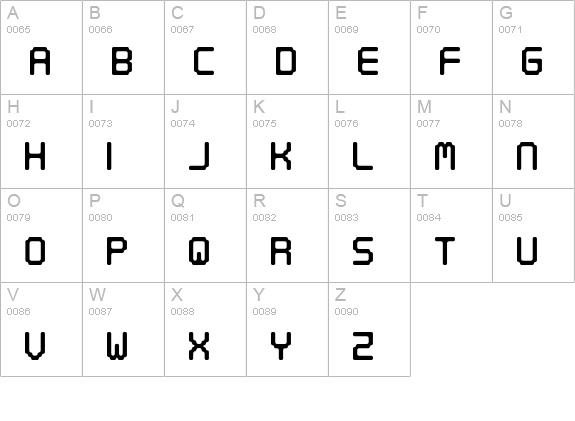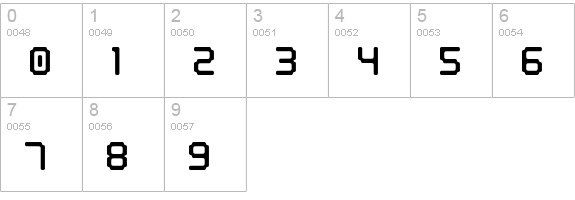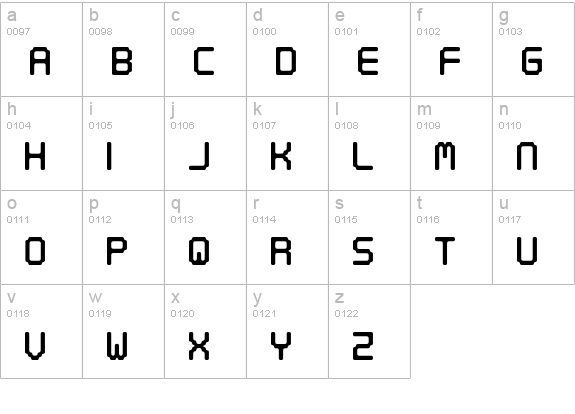
Introducing Digital Tech Font, a cutting-edge typeface that combines sleek, futuristic design with a touch of technological sophistication. This font is perfect for any digital or tech-related project, whether it's a website, app, or even a digital marketing campaign. Digital Tech Font features clean lines and sharp angles, giving it a modern and polished appearance. Its geometric shapes and precise letterforms make it highly readable, even at smaller sizes. Whether you're creating a bold headline or body text, this font will make your content stand out and captivate your audience. But what sets Digital Tech Font apart from other fonts is that it is completely free! That's right, you can download and use this font without any restrictions or limitations. It's available for free download exclusively at FontsMarket.com, a trusted source for high-quality fonts. With Digital Tech Font, you don't have to compromise on quality or style just because it's free. This font is meticulously designed and carefully crafted to ensure an exceptional user experience. Its versatility allows it to seamlessly blend with various design elements, making it a versatile choice for designers and creatives alike. So why wait? Enhance your digital projects with the sleek and modern aesthetics of Digital Tech Font today. Download it for free at FontsMarket.com and take your designs to the next level. Don't miss out on this incredible opportunity to elevate your work with a font that combines style, functionality, and affordability.